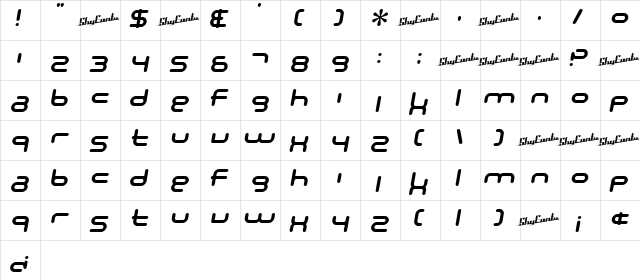
Design Context for SF Technodelight NS Typeface
SF Technodelight NS channels digital-age aesthetics through its sharp, structured letterforms — ideal for brands that want to signal innovation. Its italic angle brings a sense of urgency and motion to the letterforms. The heavy weight commands attention and anchors typographic hierarchies.
Pro Tip: Try SF Technodelight NS with generous letter-spacing in UI labels and navigation — the geometric forms benefit from room to breathe.